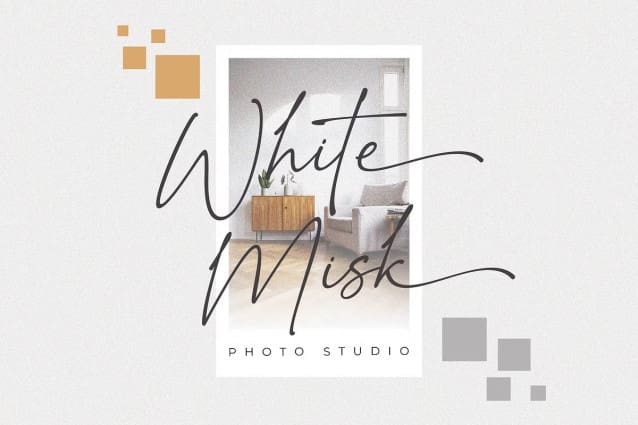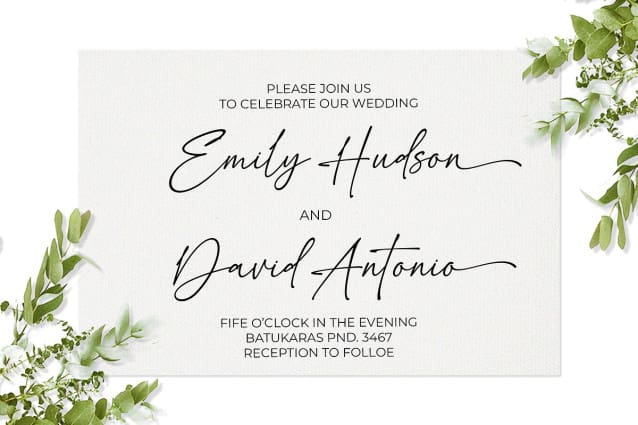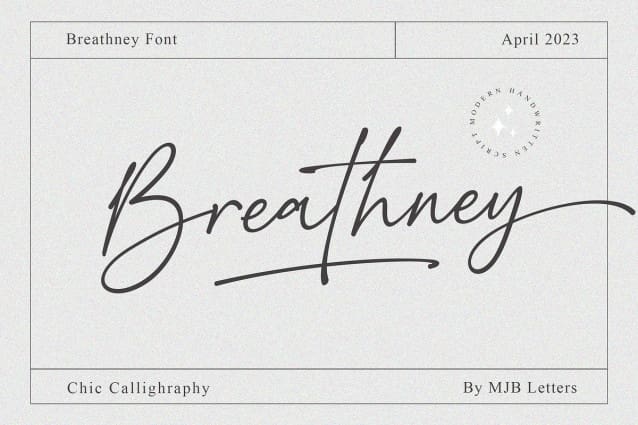
Breathney Script Font
Breathney Script Font a beautiful, natural handwritten font that exudes charm. With its soft, curved lines, it captures the uniqueness of human handwriting, adding a personal touch to graphic designs. Ideal for feminine, friendly projects like wedding invites, logos, and posters, Breathney brings warmth and authenticity. Enhance your designs with its gentle, organic aesthetic, conveying a heartfelt message.